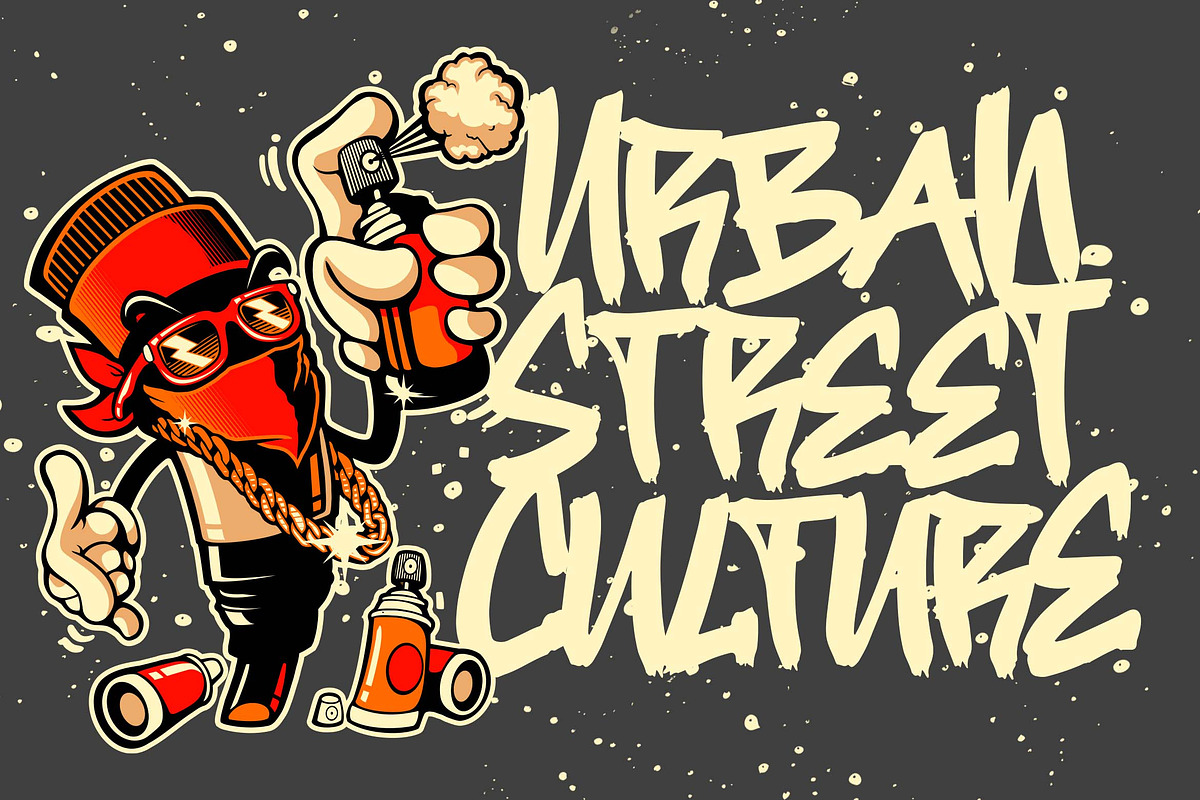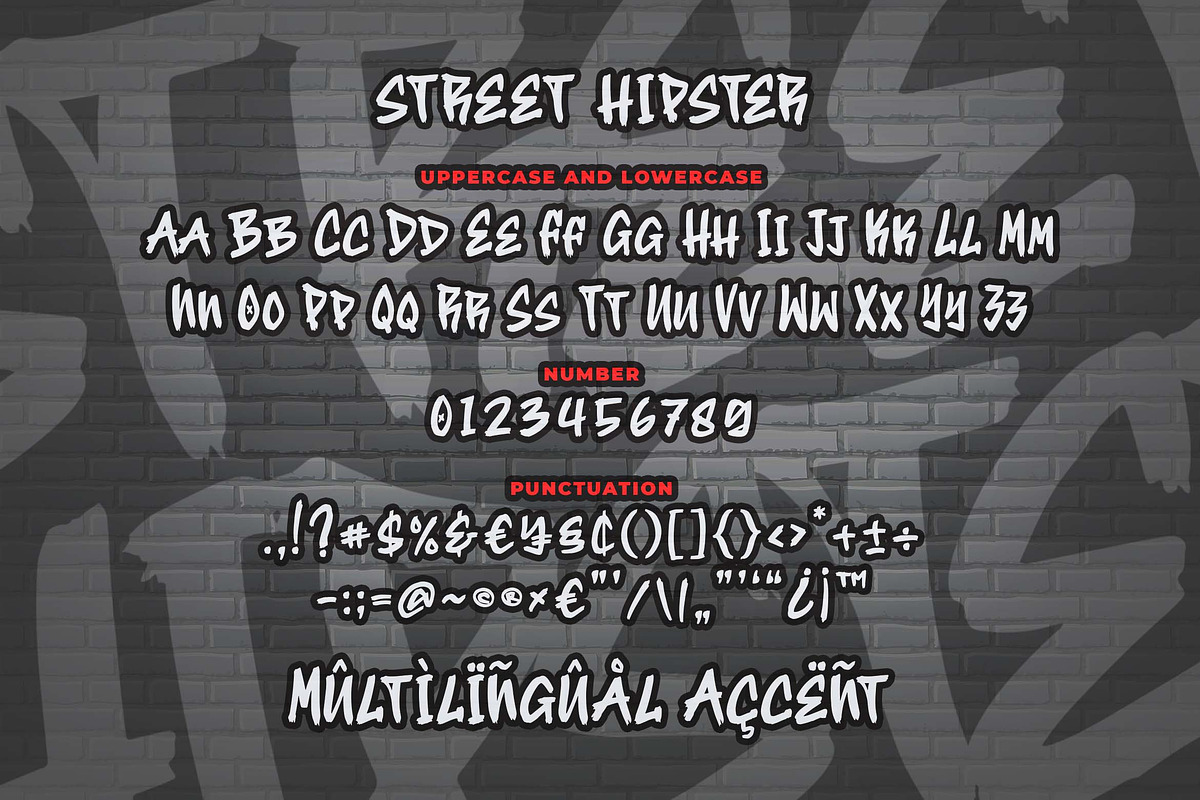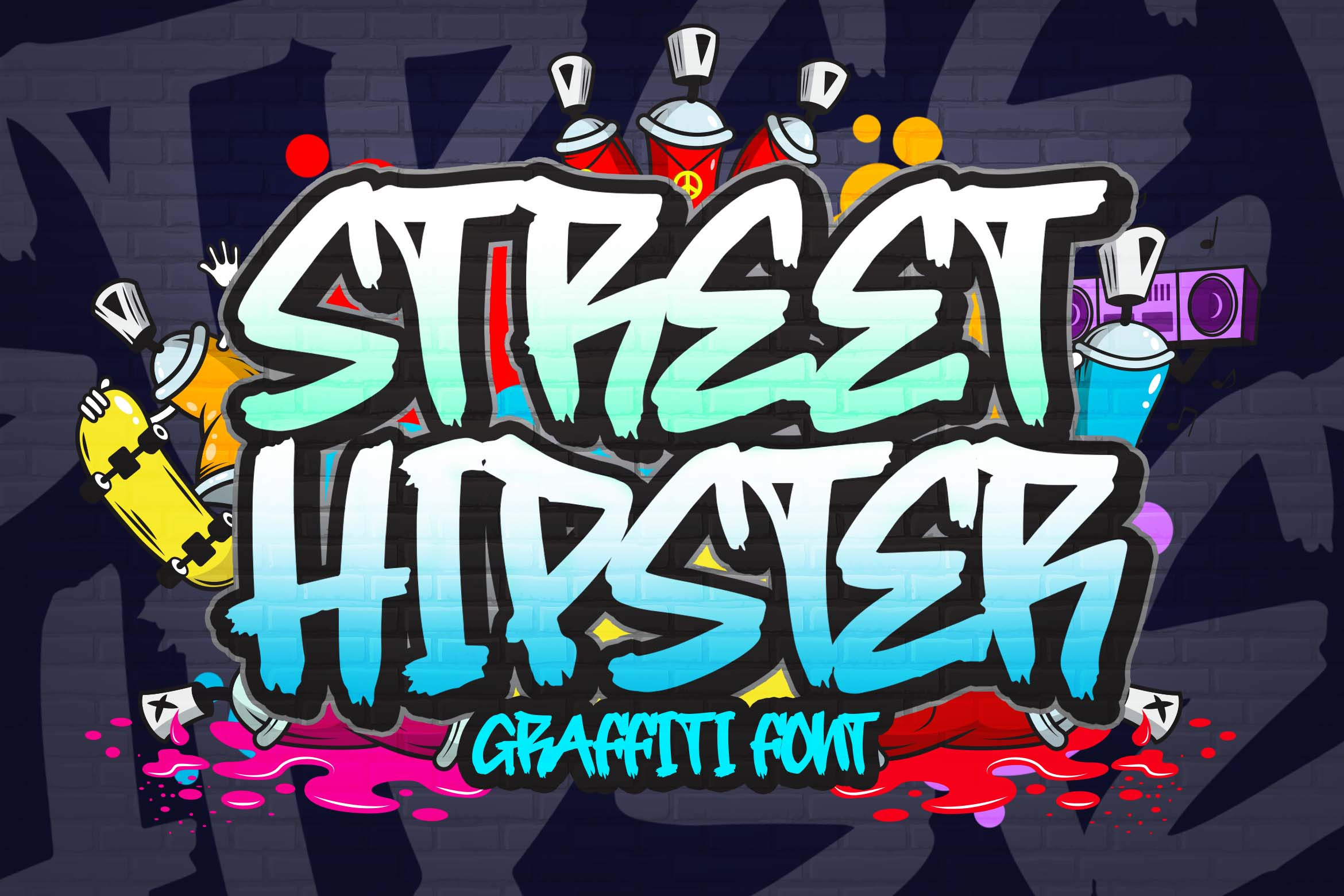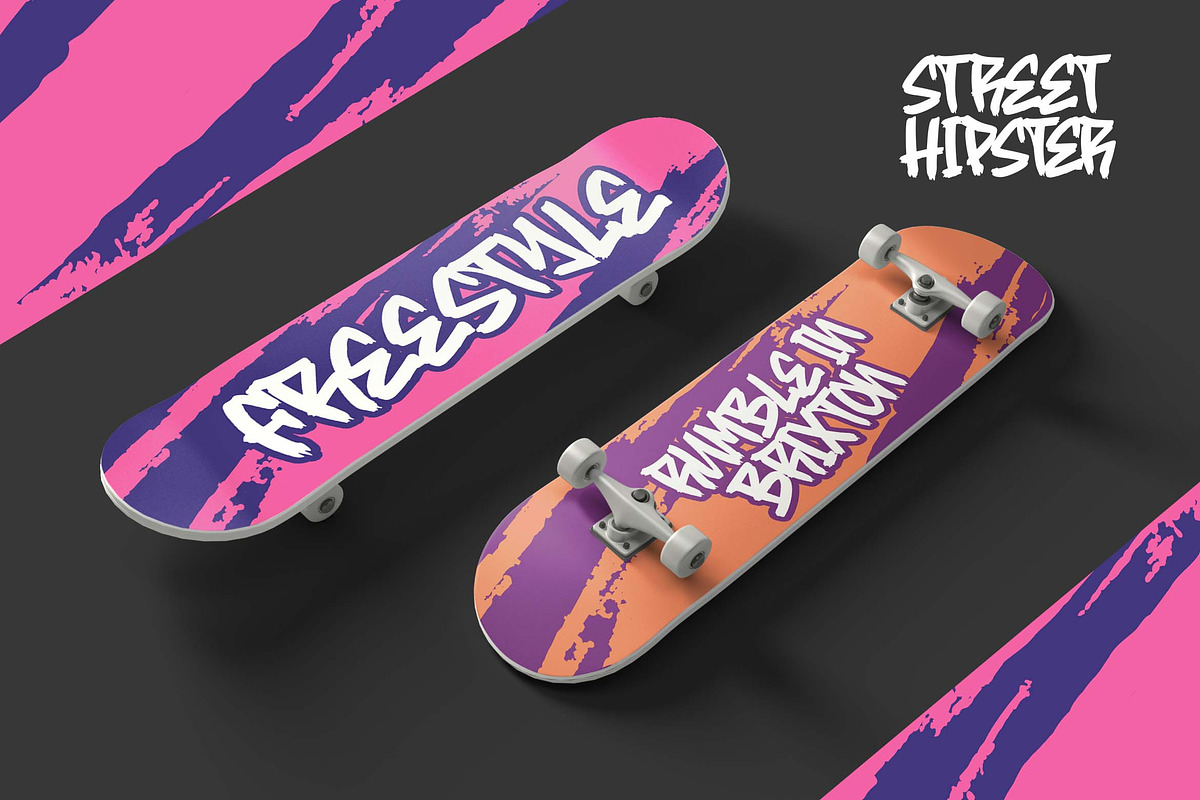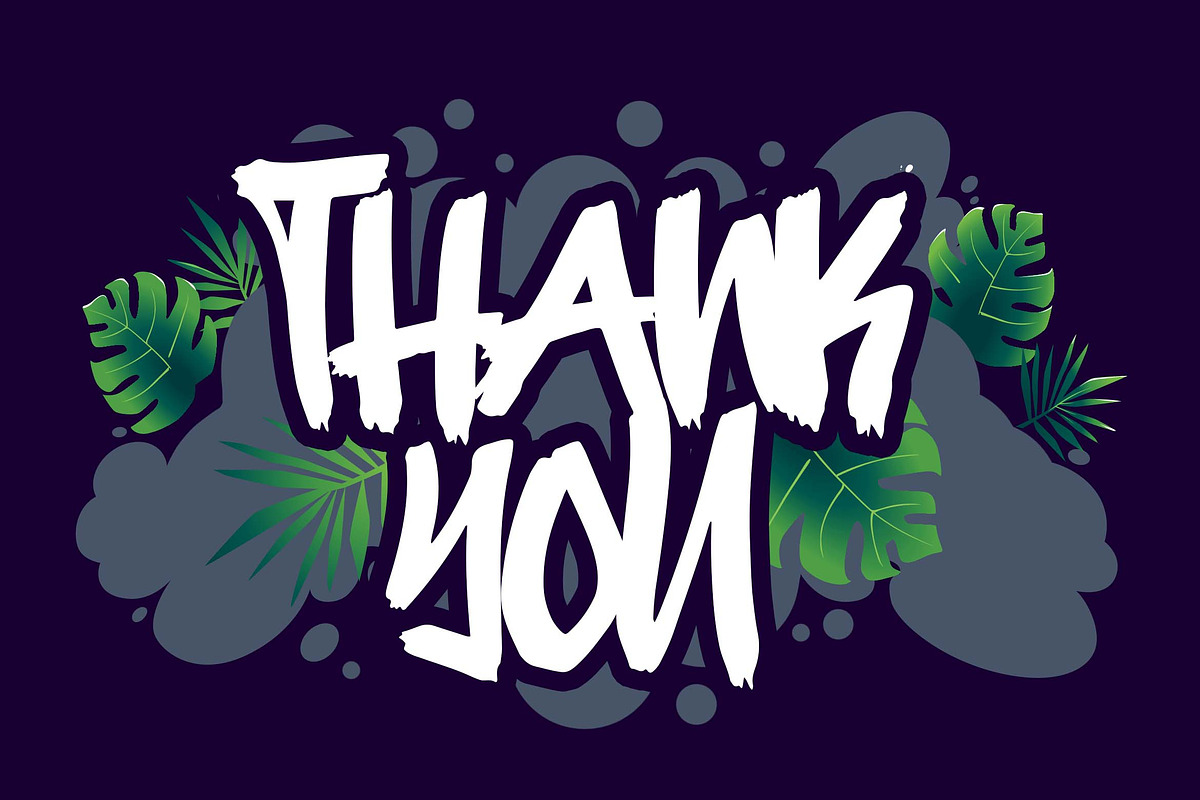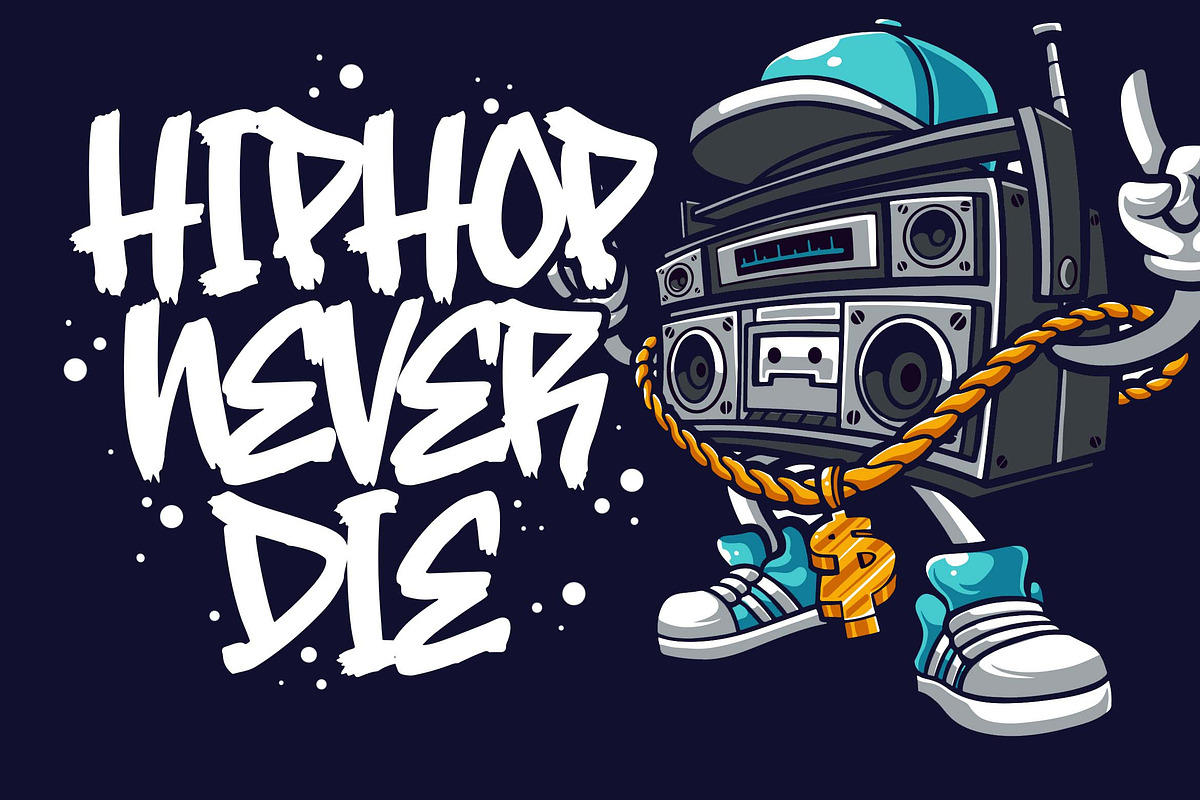
Street Hipster Graffiti Font
Introducing of our new product the name is Street Hipster Graffiti Font. Street Hipster inspired by graffiti style with a fun theme very good for graffity poster, Hip Hop music, kids poster, flyer, childrenbook, cartoon, comic etc
MULTILINGUAL ACCENT :
ØÆøæ¢ÐŒœÁĂÂÀÄĄÅÃǼĆČÇĈĊĎÉĔĚÊËĖÈĘĞĜĢĠĤÍĬÎÏİÌĮĨĴĶĹĽĻĿŃŇŅÑÓŎÔÖÒŐǾÕŔŘŖŚŠŞŜȘ ŤŢÚŬÛÜÙŰŲŮŨẂŴẄẀÝŶŸỲŹŽŻáăâäàąåãǽćčçĉċďéĕěêëėèęğĝģġĥíîïìįĩĵķĺľļŀńʼnňņñóŏôöòőǿõŕřŗśšşŝșťţ ŭûüűùųůũẃŵẅẁýŷÿỳźžż